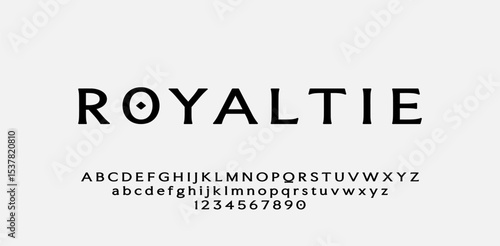
Elegant Minimalistic Font. Luxury lettering, suit for poster design, typography, and all graphic design needs. Come in editable vector. Elegant alphabet.